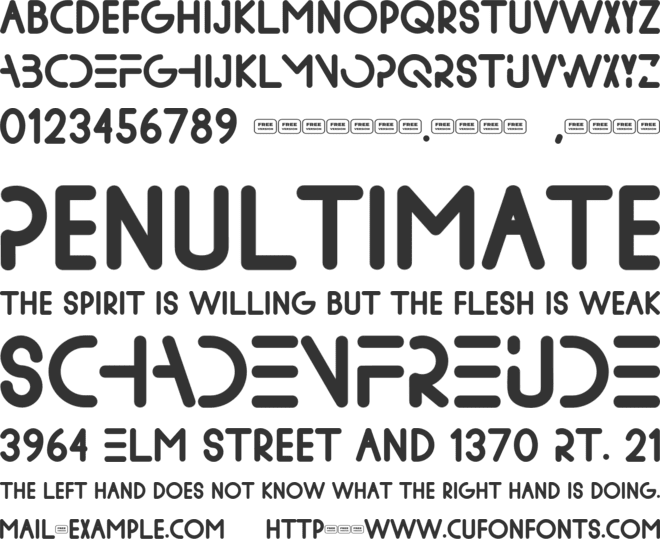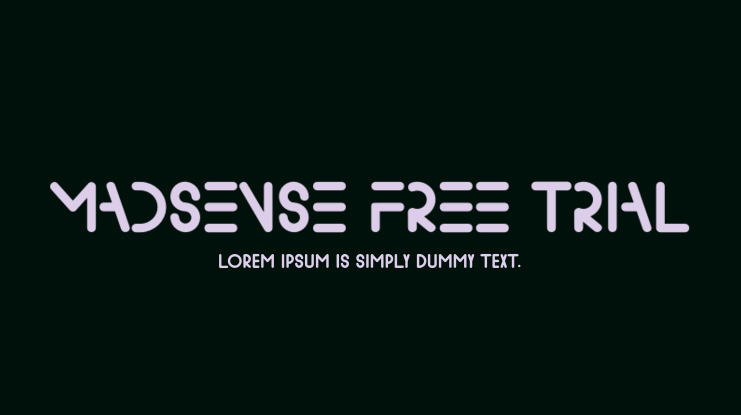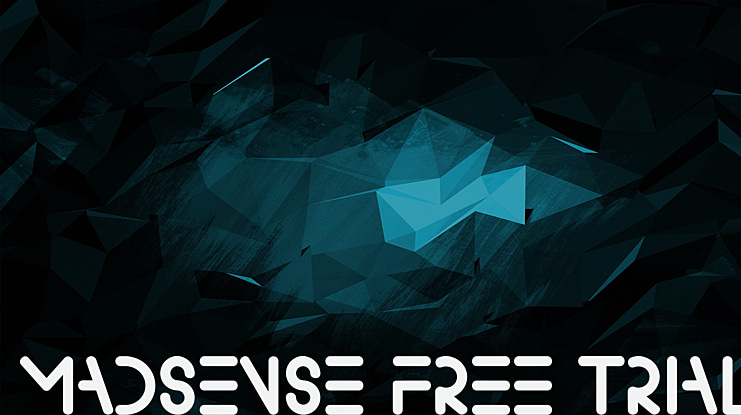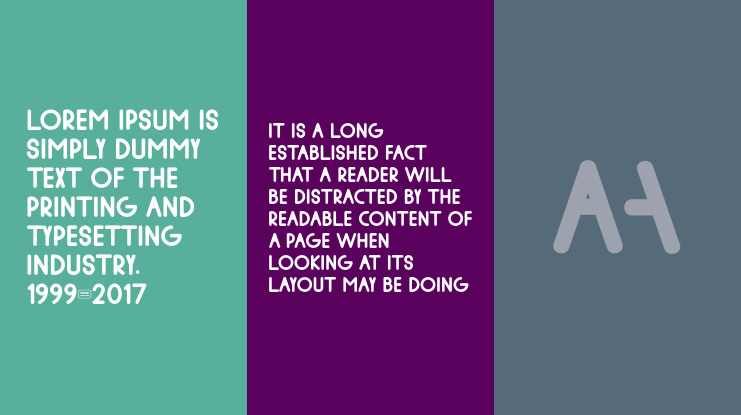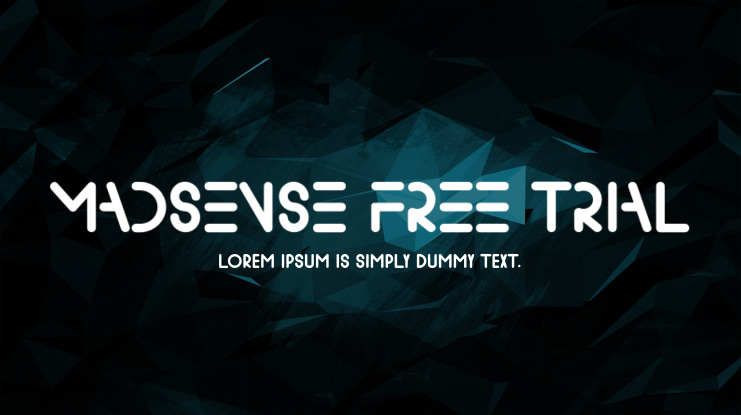
MADSENSE FREE TRIAL Font
Madsense is a futuristic font for design of minimalistic logos and store brand. Madsense has digital world feel. The font is suitable for creating wordmarks, titles, book cover, font game,  e-sports,  taglines, and modern technology interior theme.